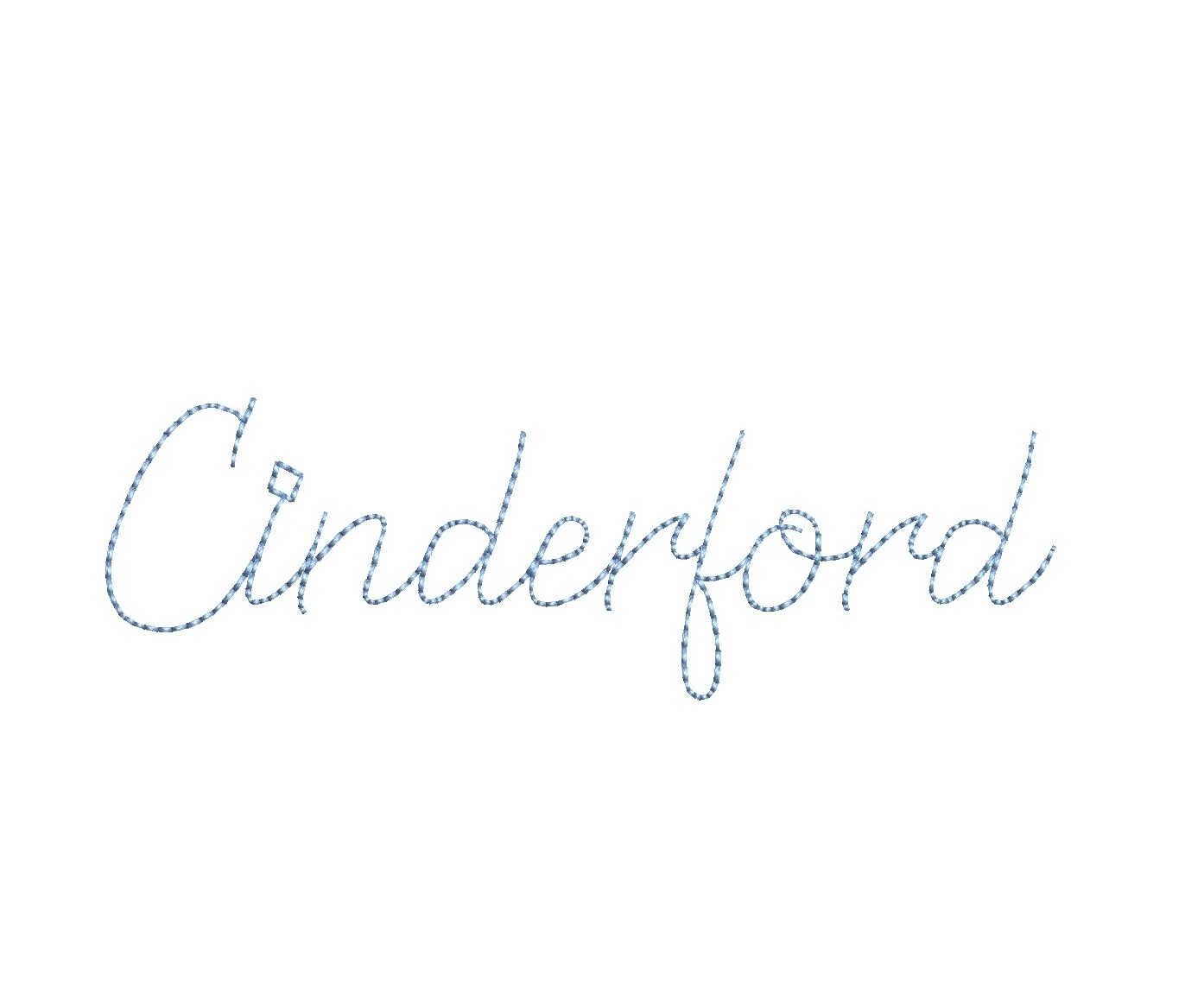
Elevate your embroidery projects with the Cinder Ford Bean Stitch ESA font. Designed for compatibility with Wilcom Studio e4.5.6 and Hatch 3 versions and newer, this font seamlessly blends classic charm with modern stitching technology. The intricate bean stitch technique adds captivating depth and texture to your designs. Cinder Ford Bean Stitch ESA font effortlessly harmonizes with Wilcom Studio e4.5.6 and Hatch 3, unlocking a world of creative possibilities. Transform your embroidery into exquisite works of art, embracing the perfect fusion of tradition and innovation. Elevate your craftsmanship today and embark on a journey of artistic excellence.